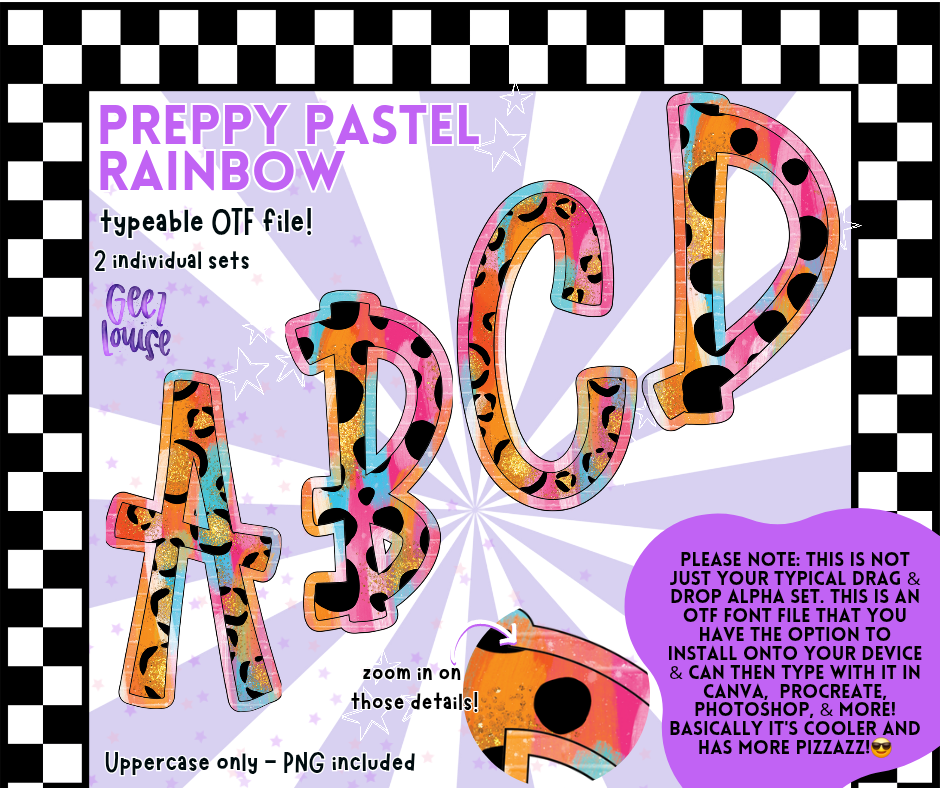
Preppy Pastel Rainbow Typeable OTF Alpha Font with PNGs | 2 Pattern Styles
🌈 Bright, bold, and full of sass.
The Preppy Pastel Rainbow Typeable OTF Alpha Font features two fun pattern styles — leopard print and bold polka — all in a colorful pastel rainbow palette. Perfect for designs that need a pop of color and personality.
📌 Why You’ll Love It:
• Two playful styles in one font – swap between leopard and polka
• Pastel perfection – Trendy colors for seasonal or year-round use